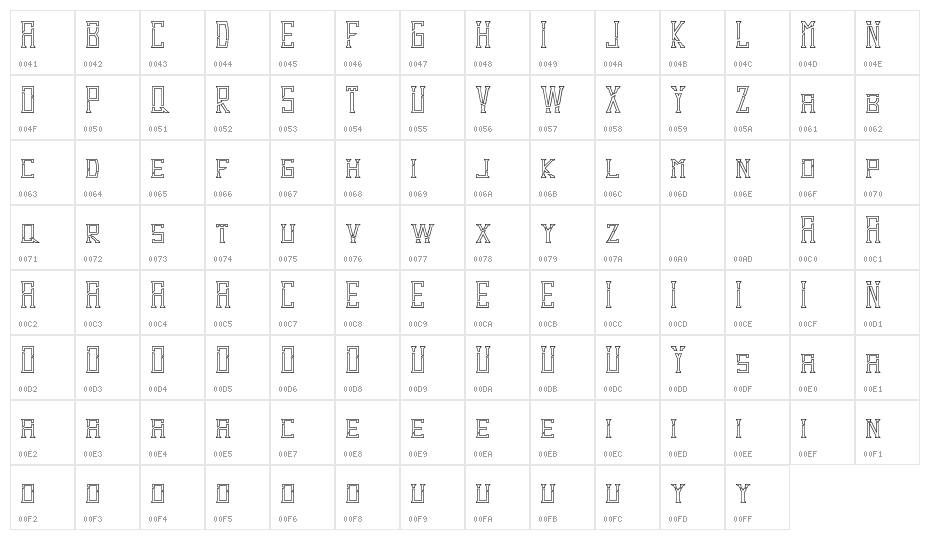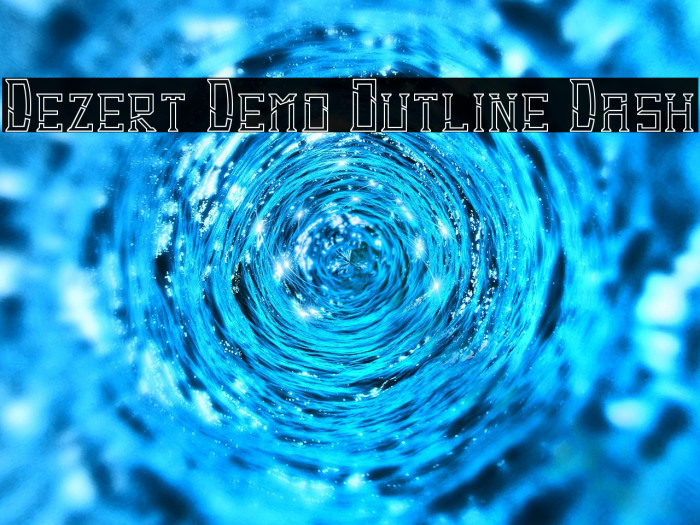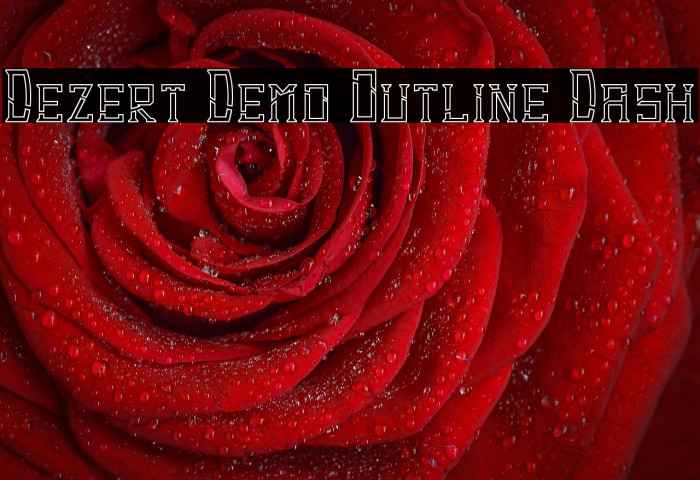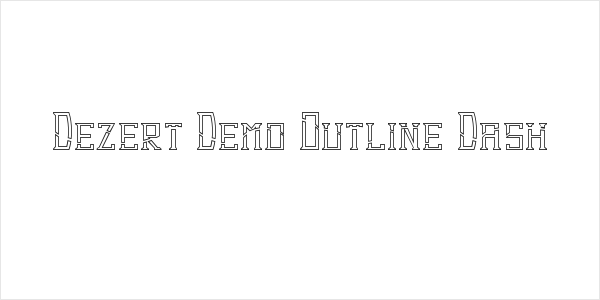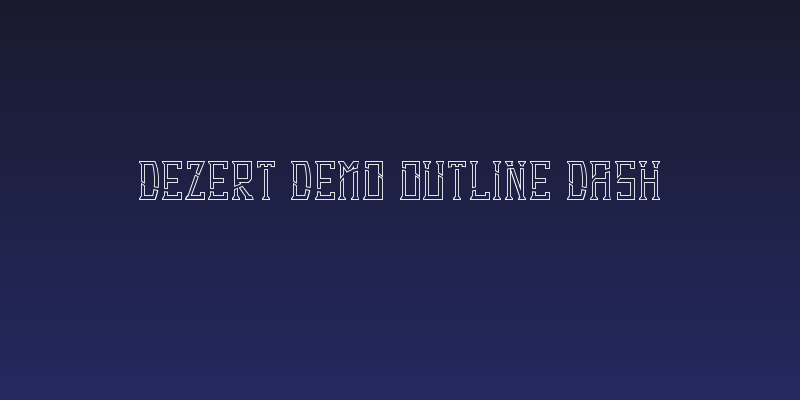
Dezert Demo Outline Dash Font
Dezert Demo Outline Dash Description
This font features an outline style with a unique dash pattern, giving it a modern and edgy appearance. The characters are constructed with angular lines and sharp corners, creating a geometric and futuristic look. The uppercase letters are bold and prominent, while the overall design maintains a consistent width throughout. The font's distinct outline and dash elements make it stand out, offering a visually striking effect that is both decorative and functional.